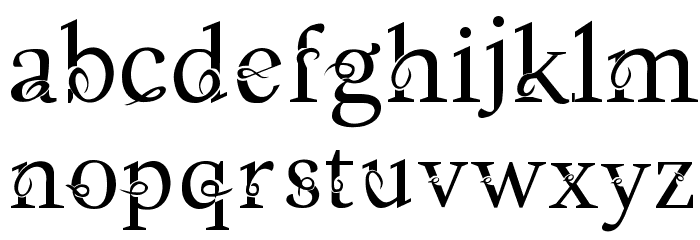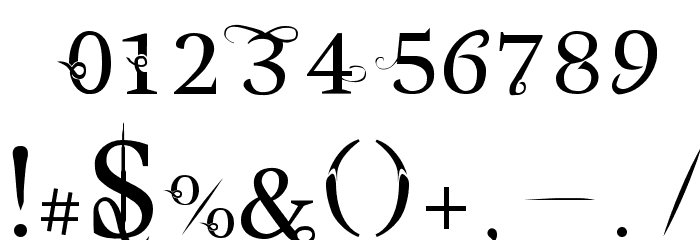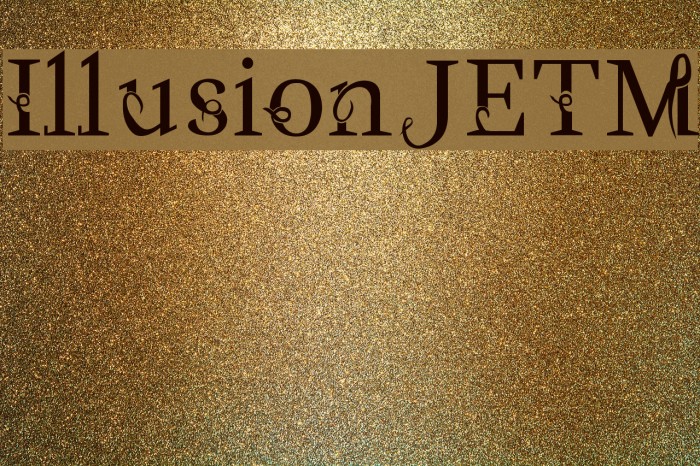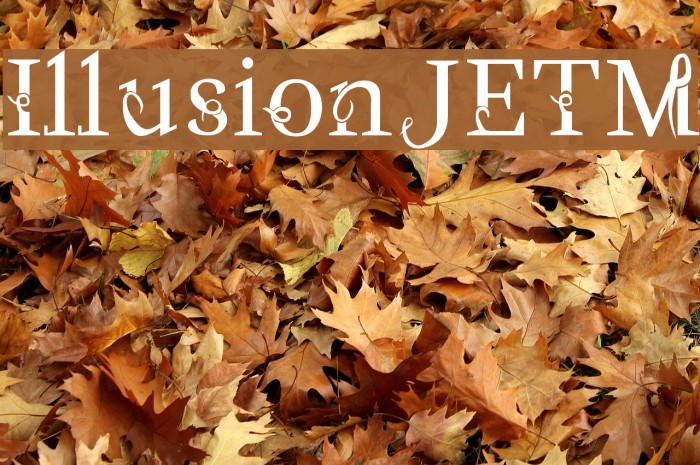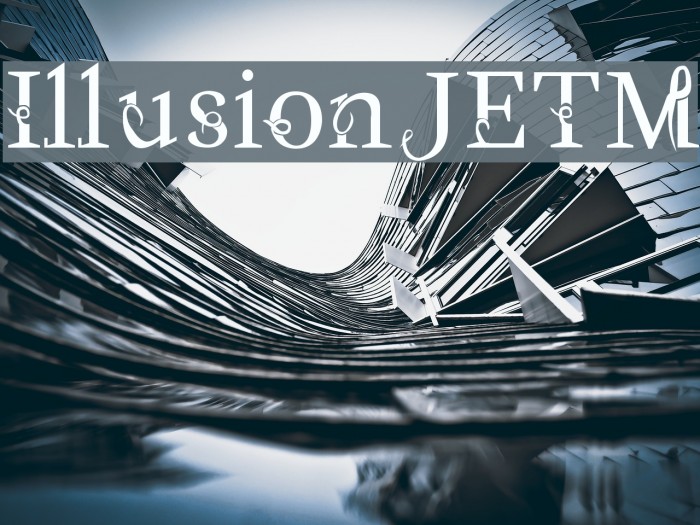
IllusionJETM Font
This font features a unique and decorative style, characterized by elegant swirls and flourishes that extend from the main strokes of each character. The uppercase letters are bold and commanding, with intricate details that add a sense of sophistication and artistry. The lowercase letters maintain a consistent style, offering a harmonious blend of readability and decorative flair. Numbers and special characters are equally adorned with artistic elements, making them stand out. The overall design is reminiscent of vintage calligraphy, yet it maintains a modern twist that makes it suitable for contemporary use.
A decorative font with elegant swirls and vintage calligraphic elements.
- Proposed Projects: Ideal for wedding invitations, luxury branding, artistic posters, and decorative headings.
- Overall Style: Vintage, Decorative
- Use Case: Headlines, Logos, Invitations